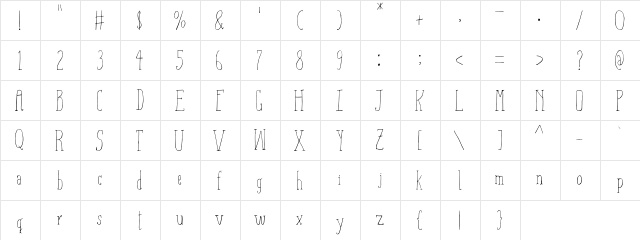
Aiza Shine Serif Regular
Design Context for Aiza Shine Serif Typeface
Aiza Shine Serif brings classic typographic sensibility to the table — its serifs and measured letterforms reflect centuries of print heritage.
Pro Tip: Use Aiza Shine Serif for editorial body copy and considered headline work. Pair with a neutral sans for UI elements or captions to create a classic hierarchy.